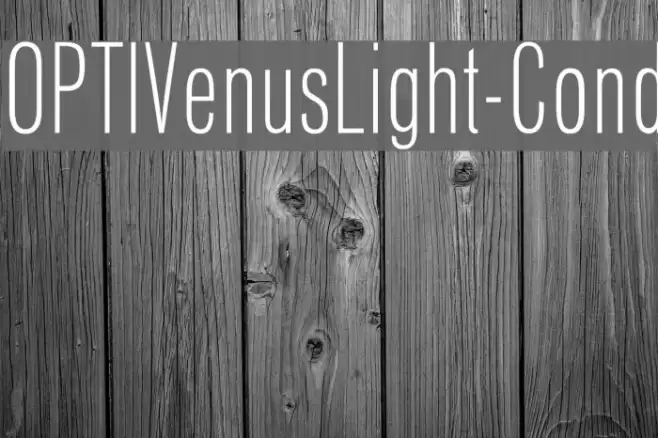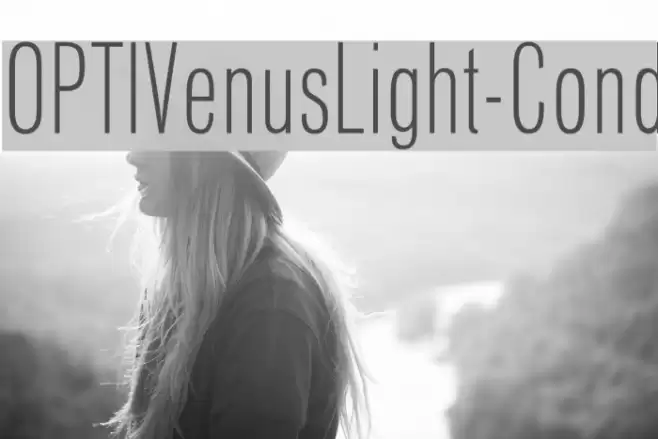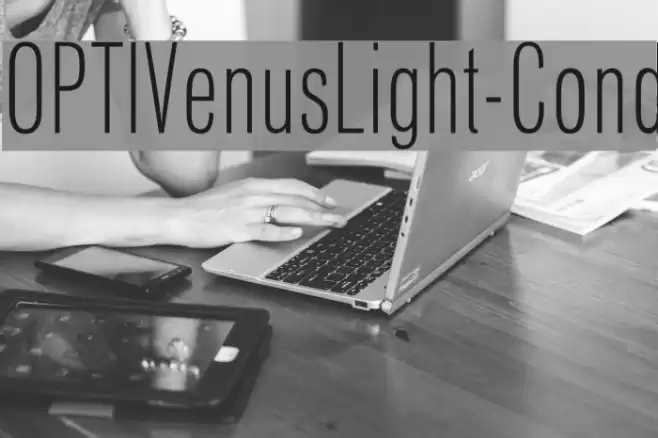
OPTIVenusLight-Cond Font
OPTIVenusLight-Cond Description
This font features a sleek and modern design with a condensed structure. The characters are tall and narrow, providing a clean and sophisticated appearance. The strokes are consistent in weight, offering a uniform look across all letters and numbers. The uppercase and lowercase letters maintain a harmonious balance, while the numerals are clear and easy to read. Special characters are distinct and well-integrated, enhancing the font's versatility. Its minimalistic style makes it suitable for contemporary design projects.
A sleek, modern, and condensed font with consistent stroke weight from Uncategorized fonts.
- Proposed Projects: Ideal for branding, editorial design, advertising, and digital interfaces where a modern and clean aesthetic is desired.
- Weight: Light
- Width: Condensed
- Use Case: Headlines, Body text, Logos